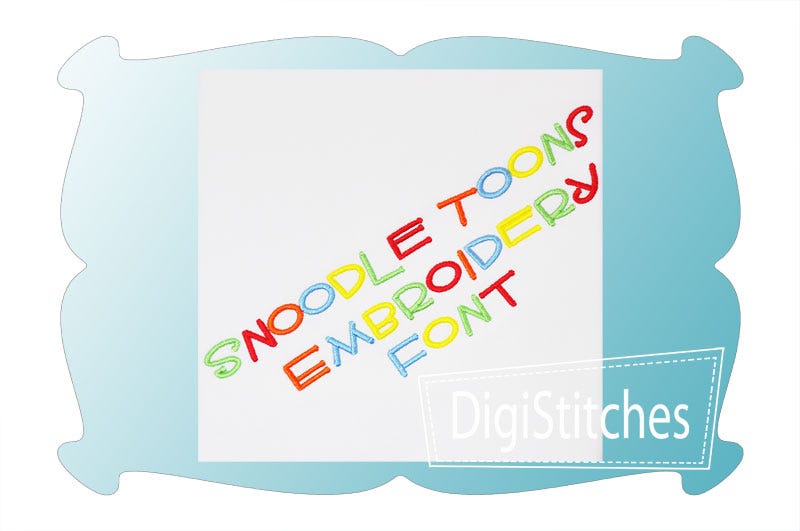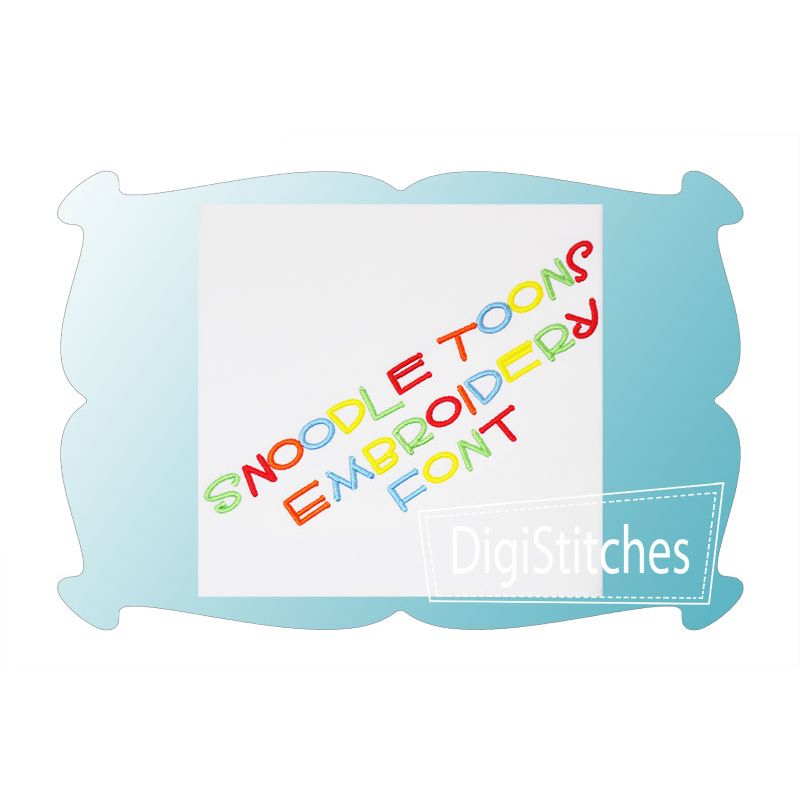
Snoodle Toons Embroidery Font
Snoodle Toons Embroidery Font embroidery font is a fun and unique font!
Featuring super bold letters that really stand out on t-shirts and projects. A great font for both boys and girls!